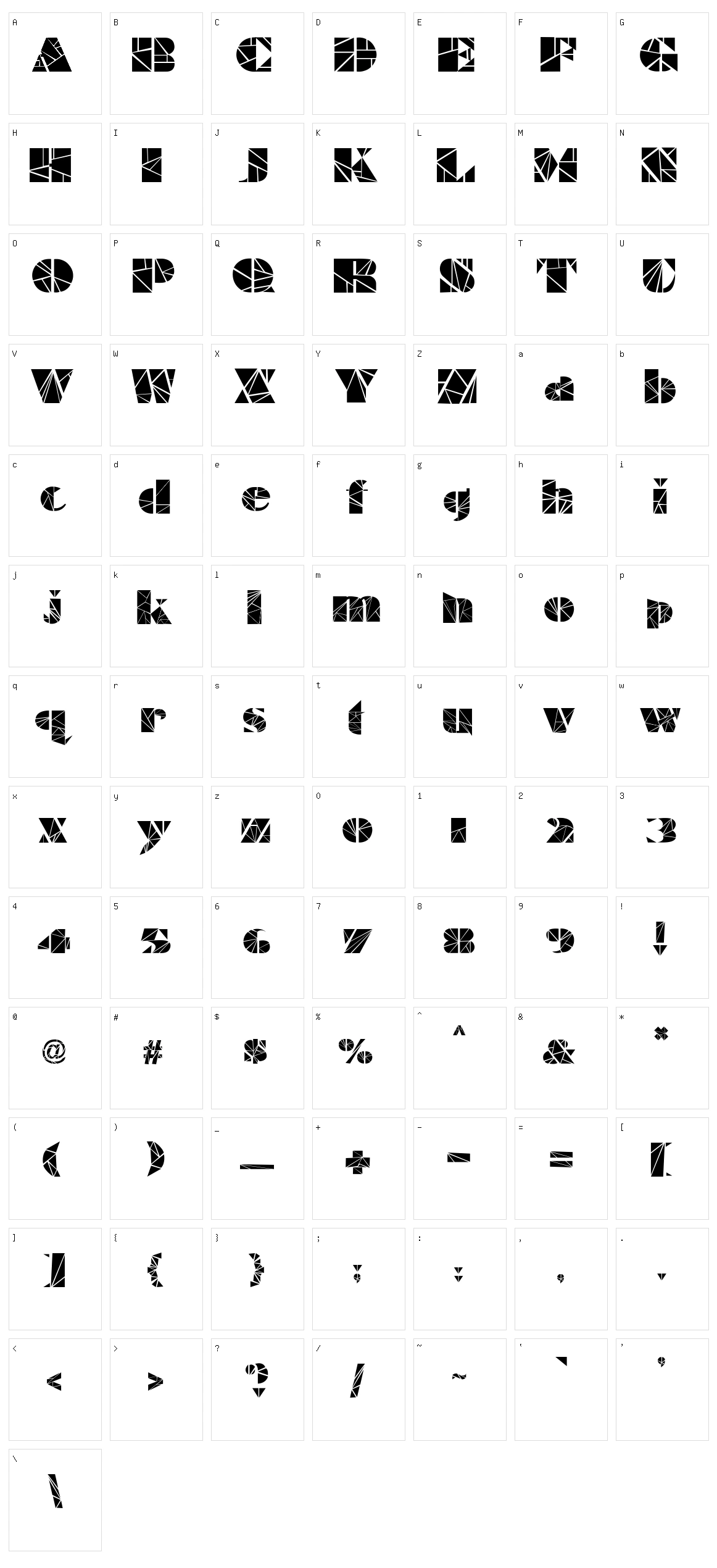
The free font Illuminate is carefully designed by Anwyn Cochrane, showcasing a thoughtful balance of creativity and usability and falls under the Decorative font style. When you download the ZIP file, it contains only 21.21 KB of font files, making it lightweight and quick to download. Please review the license details below to understand permitted usage and distribution rights. If license information is not available, we recommend using this font for personal projects only or contacting the author directly for commercial usage permissions.